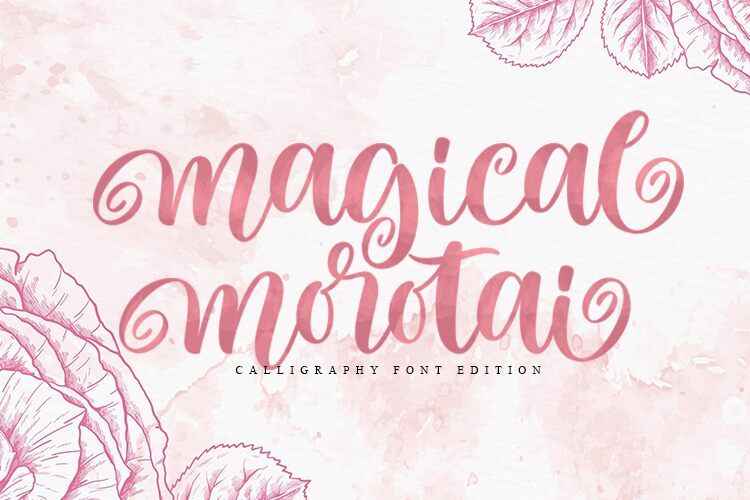
Magical Morotai
Introducing Magical Morotai, an exquisite bold font designed by Zain Fahroni. Its curly calligraphy style adds a unique flair to any project - from wedding invitations to restaurant menus and beyond.